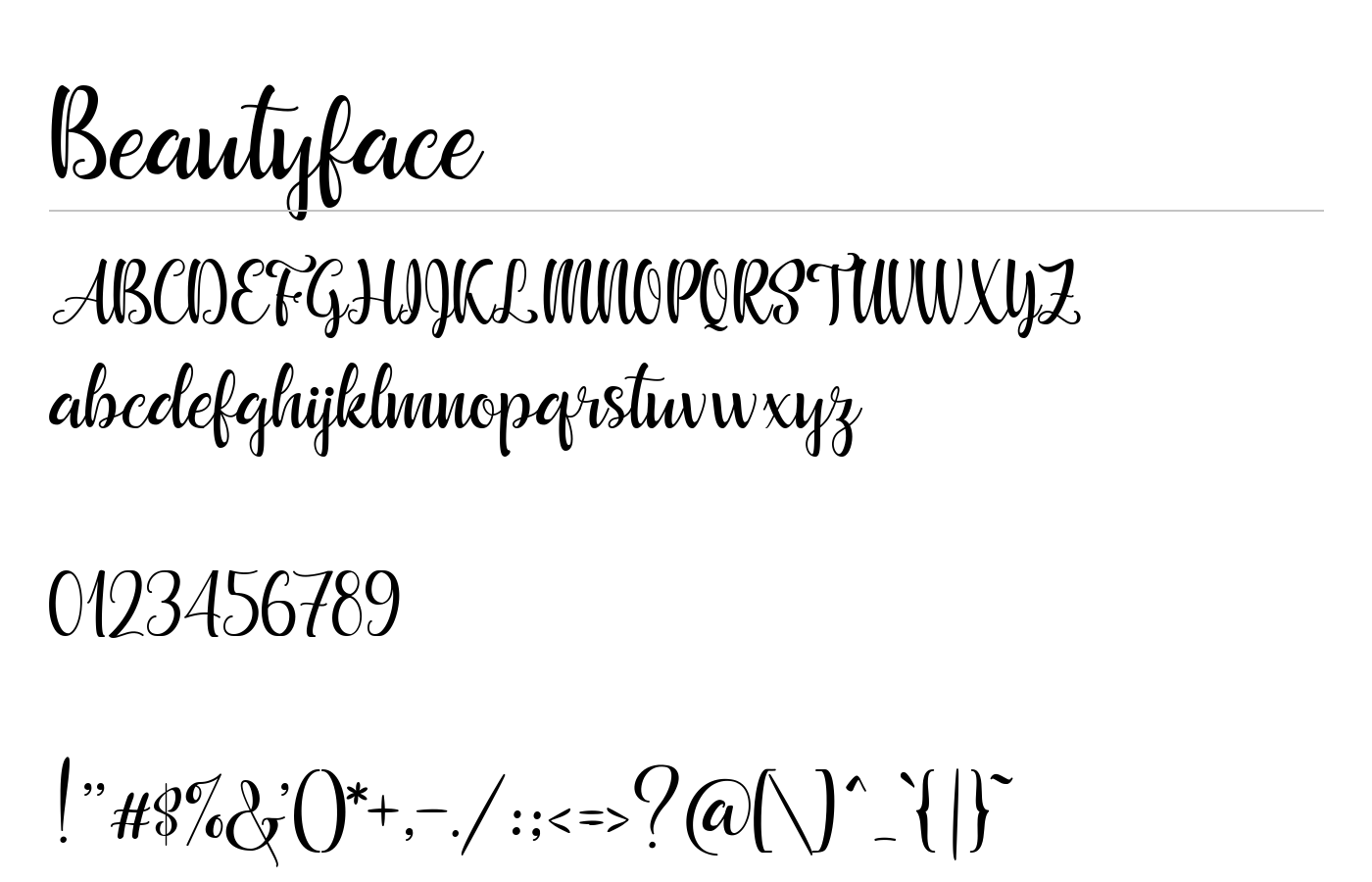
Beautyface is an elegant script font with a delicate and flowing style that combines slender strokes and graceful curves, creating a refined and feminine appearance. Its tall x-height and smooth, lightly varied stroke widths make it ideal for sophisticated branding, invitations, and fashion-related design where a touch of charm and stylish flair is desired. This font works best in headlines and display uses, adding a personalized yet polished look to any project.
Beautyface Font
About Beautyface Font
| Font family | Beautyface Font |
| Designer | Riverside Digital Type Foundry |